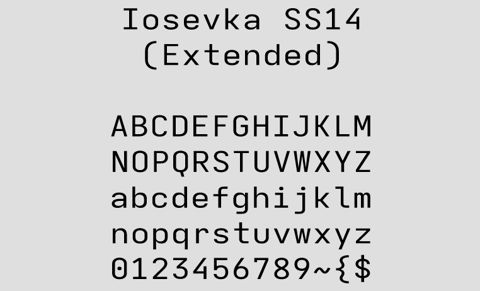
Iosevka is an open-source, sans-serif + slab-serif, monospace + quasi‑proportional typeface family, designed for writing code, using in terminals, and preparing technical documents.
Zero StyleCustom
LigaturesCustom
Weights9 (Thin, Extralight, Light, Regular, Medium, Semibold, Bold, Extrabold, Heavy)
ItalicsYes
SerifSans/Slab
Created2015
PitchFixed/Quasi-Variable
SlantingOblique/Italic
CasesUpper/Lower
Widths2 (Normal, Extended)
Pro Ten different styles
Iosevka provides its font in ten different stylistic sets that are similar to other popular monospace fonts.
Con The large B looks a little bit unbalanced (top part larger than bottom part)